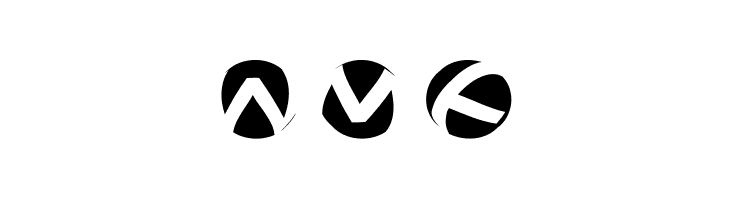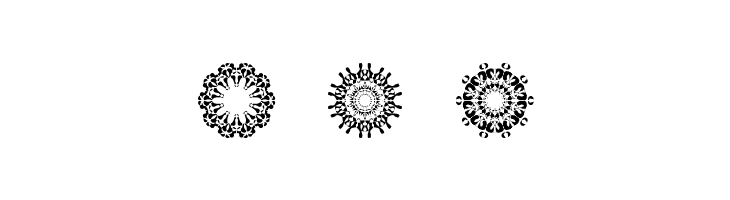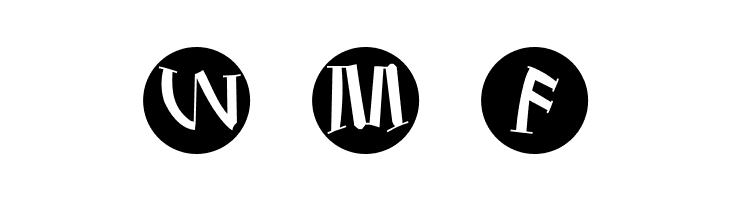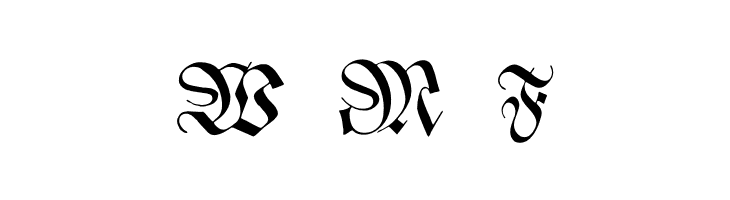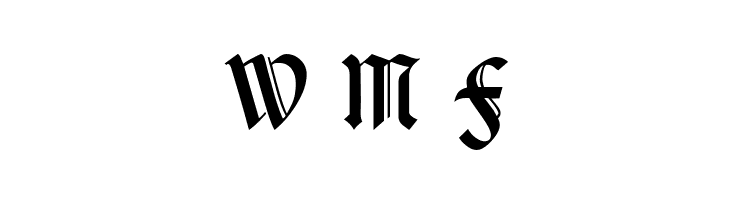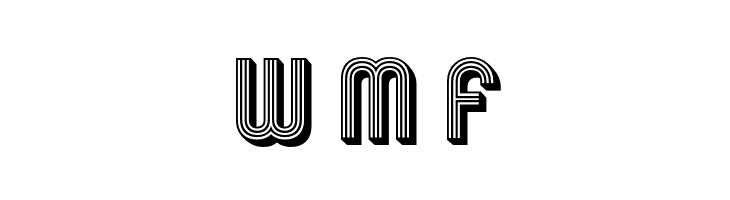
A bold, decorative font with intricate, tribal-inspired patterns.
A modern, geometric font with sharp angles and circular elements.
A display font made up of illustrated human faces and characters.
A modern, fragmented font with bold, circular designs.
A playful, hand-drawn animal illustration font perfect for creative projects.
An ornate, Blackletter-inspired font with intricate flourishes and embellishments.
Ornamental geometric dingbat font with intricate, symmetrical designs.
A bold, disk-enclosed font with a classical, ancient inscription style.
A bold, impactful font with strong, consistent characters.
An intricate, decorative font with high contrast and elegant flourishes.
Ornamental dingbat font with diverse vignettes and frames.
A classic blackletter font with ornate, gothic letterforms.
A bold decorative font with intricate graphic elements in each character.
A bold, edgy font with sharp, angular elements and a rebellious feel.
An ancient script-inspired font with bold, angular, and geometric characters.
A modern, geometric font with sharp edges and a futuristic style.
A playful, handwritten-style font with consistent strokes and rounded edges.
A bold, italic font with a dynamic and modern style.
A playful, handwritten-style italic font with smooth curves and consistent strokes.
A modern, geometric font with clean lines and uniform stroke width.
A bold, three-dimensional font with a dynamic, shadowed style.
A digital display font with a classic 7-segment style, evoking retro tech aesthetics.
A geometric, multi-line font with a modern and bold aesthetic.
A bold, three-dimensional font with a layered, geometric design.
A dynamic, futuristic font with sharp, angular lines and a slanted orientation.
A bold, futuristic font with sharp, angular edges and a geometric design.
A modern, monospaced font ideal for coding and technical documentation.